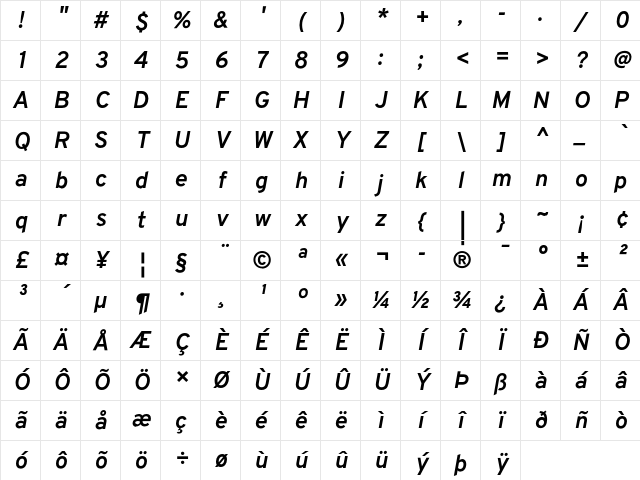
Overpass NF Bold Italic
Foundry: Delve Fonts
Designer: Delve Withrington, Dave Bailey
Design Context for Overpass NF
Overpass NF is a composed and adaptable typeface that performs quietly and consistently across a wide range of design contexts. The slanted form adds forward momentum and visual energy. Its bold stroke weight gives it real presence on the page.
Pro Tip: Use Overpass NF for emphasis, pull quotes, and subheadings where its slanted energy can add rhythm to the layout.